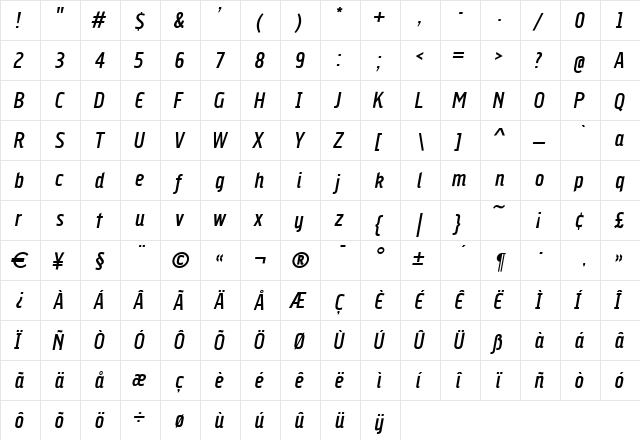
Hybrid Italic
| Foundry | \ Fountain/Peter Bruhn, Sweden |
Design Context for Hybrid Typeface
Hybrid takes a measured approach to typography — its balanced proportions and neutral character make it a reliable workhorse for both digital and print work. The dynamic lean of this cut emphasises speed and emphasis in any layout.
Pro Tip: Use Hybrid for emphasis, pull quotes, and subheadings where its slanted energy can add rhythm to the layout.